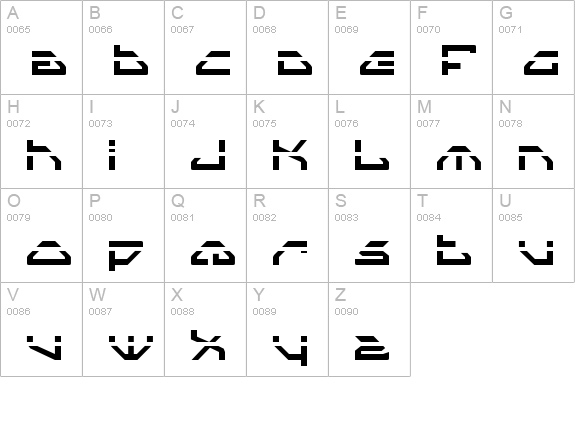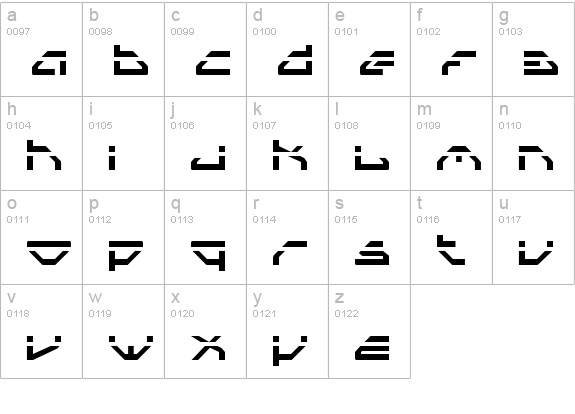
Introducing the Spylord Laser font, a mesmerizing display of sophistication and intrigue. Designed with the utmost attention to detail, this font captures the essence of a clandestine world, where secrets are whispered and mysteries unfold. With its sharp edges and futuristic aesthetic, Spylord Laser commands attention and leaves an indelible mark on any design project. Whether it's a sleek logo, a captivating headline, or an eye-catching poster, this font effortlessly adds an air of mystery and excitement. But the best part? Spylord Laser is available for free! That's right, this extraordinary font can be yours without spending a single penny. Simply head over to FontsMarket.com and download it instantly. It's a rare opportunity to embrace the allure of the Spylord Laser font without any barriers. So why wait? Unleash your creativity and let Spylord Laser transport your designs into an enigmatic realm. Whether you're a graphic designer, a branding enthusiast, or simply someone who values the power of visual communication, this font will undoubtedly elevate your work to new heights. Download it now from FontsMarket.com and embark on a journey of intrigue and captivating design possibilities.